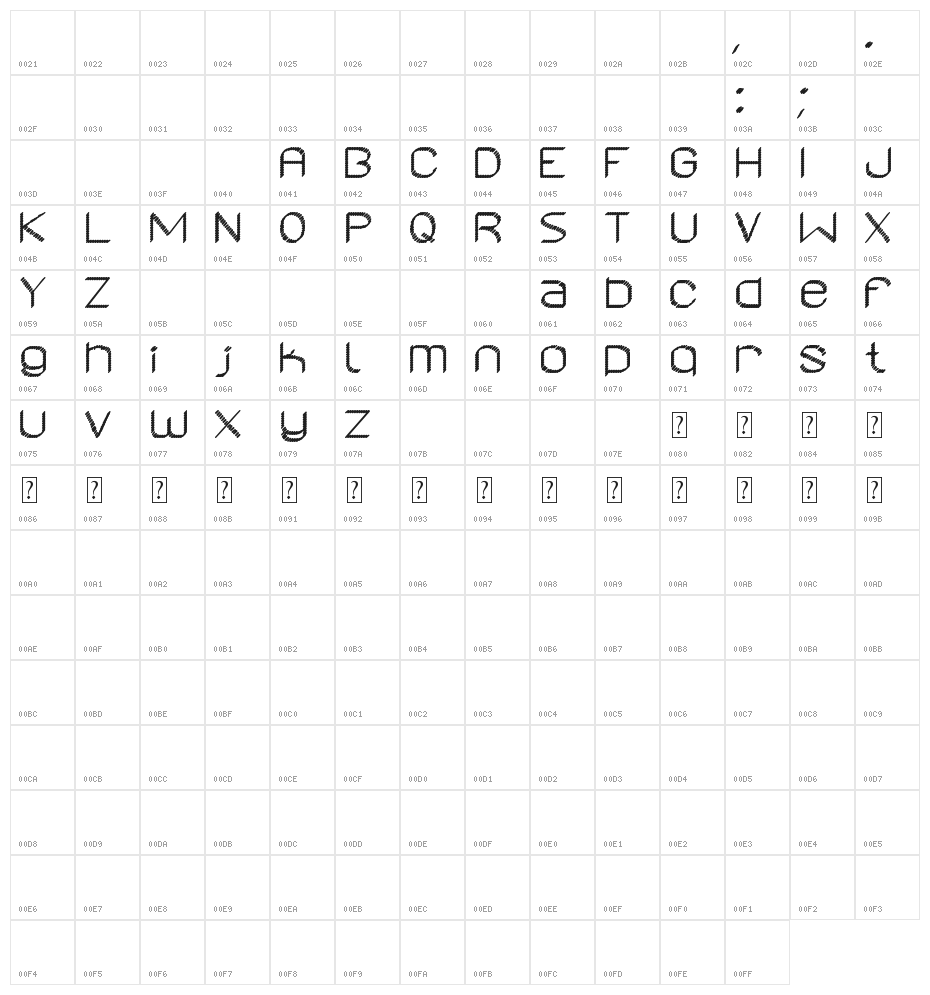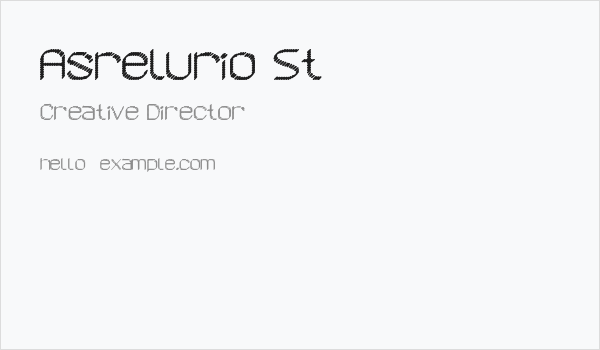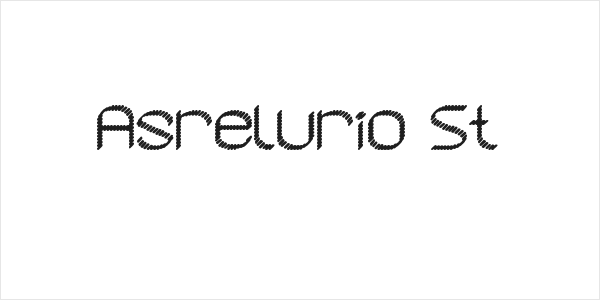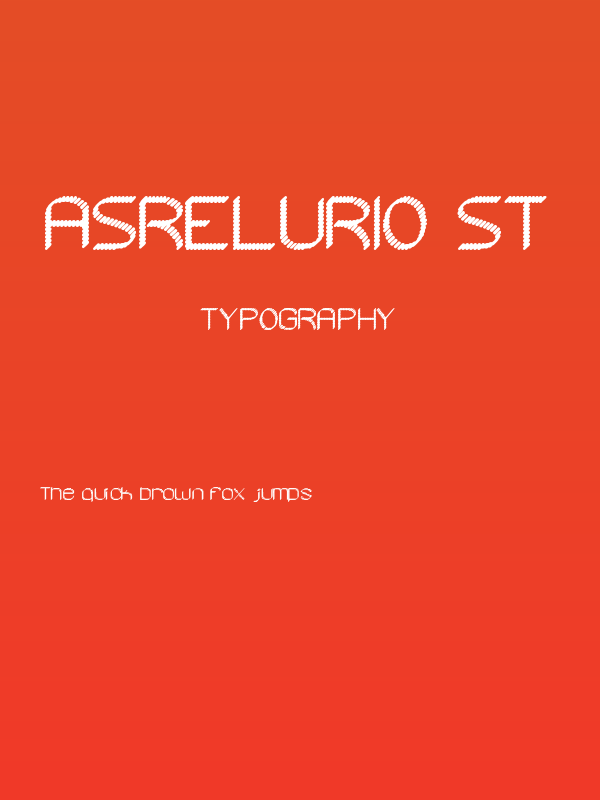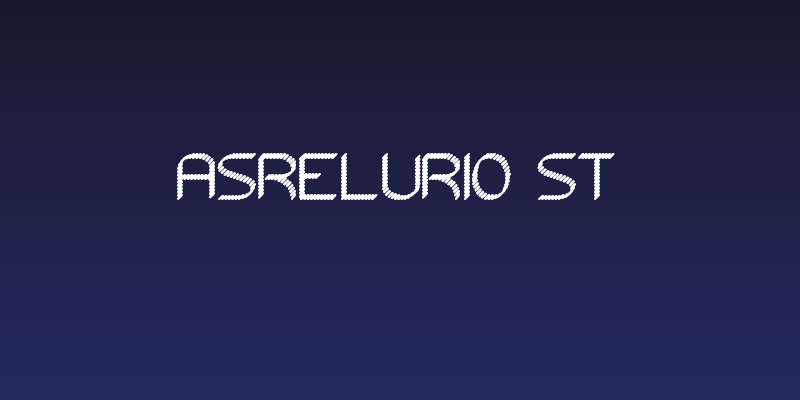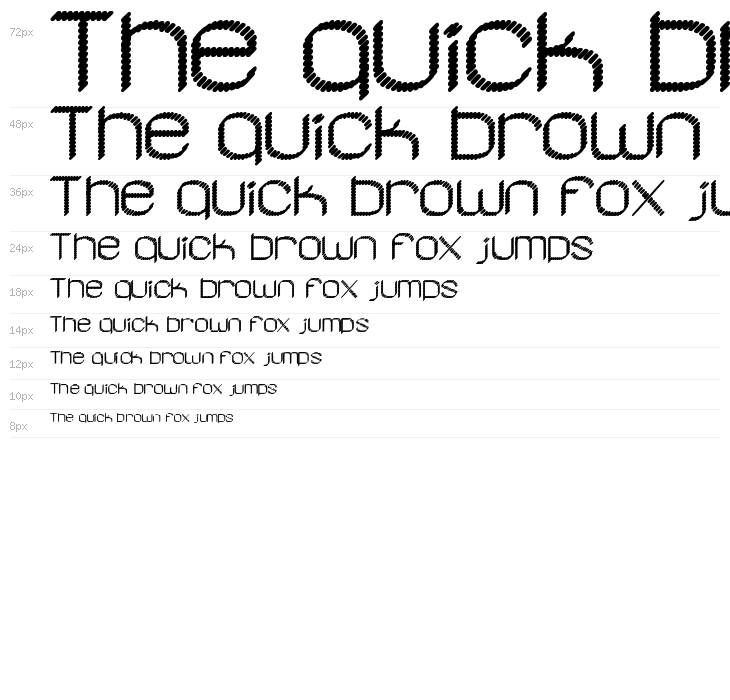
Asrelurio St Font
Asrelurio St Description
This font features a unique, decorative style with a pattern resembling diagonal lines or stripes running through each character. The design is modern and eye-catching, making it suitable for creative and artistic projects. The uppercase and lowercase letters maintain a consistent style, with rounded edges and a geometric structure. The numerals and special characters follow the same pattern, ensuring uniformity across all glyphs. This font's distinct appearance makes it ideal for projects that require a bold and innovative look.
| Proposed Projects | Ideal for branding, posters, album covers, and any project needing a bold, artistic touch. |